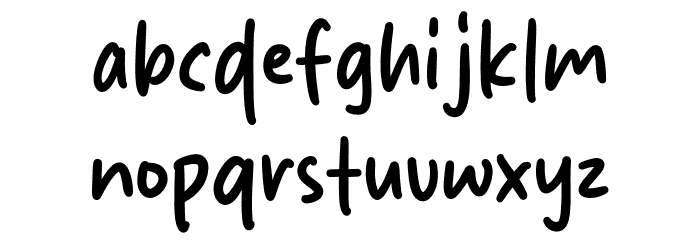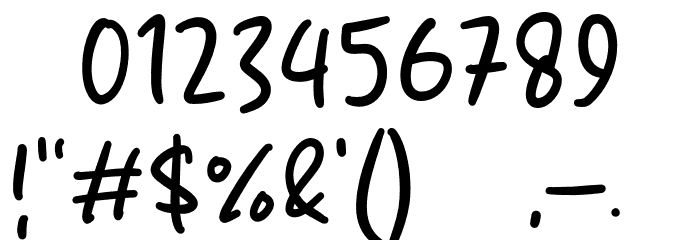
Sticky Chicken Font
This font features a playful and casual handwritten style, characterized by its smooth, rounded strokes and slightly irregular letterforms. The uppercase and lowercase letters maintain a consistent flow, giving it a friendly and approachable appearance. The numerals and special characters are designed to match the overall aesthetic, ensuring a cohesive look across all text. Its informal nature makes it ideal for projects that require a personal touch, such as invitations, greeting cards, or creative branding. The font's legibility is maintained despite its whimsical style, making it versatile for various design applications.
A playful, casual handwritten font with smooth, rounded strokes.
- Font: Sticky Chicken
- Proposed Projects: Ideal for invitations, greeting cards, creative branding, and personal projects.
- Category: Handwritten
- Overall Style: Casual, Playful
- Use Case: Headlines, Informal text, Creative projects